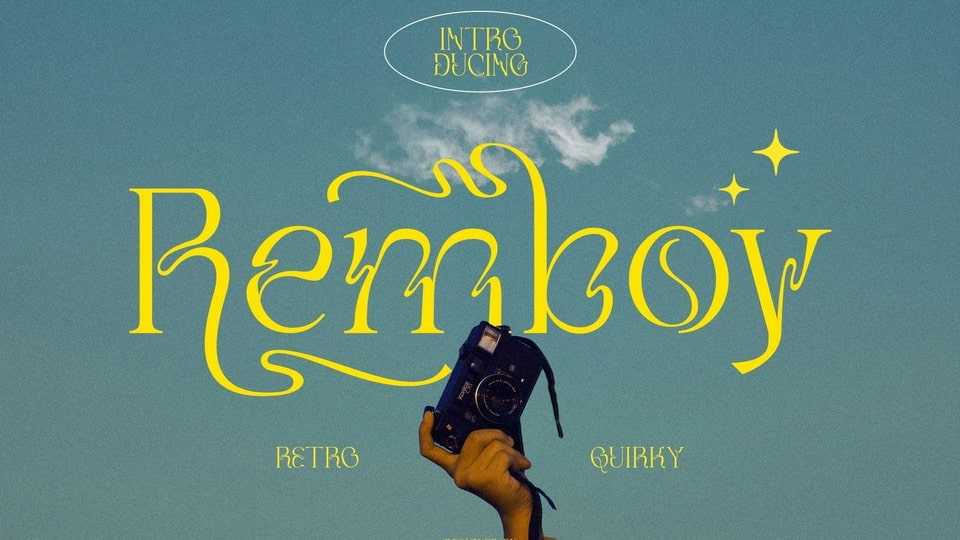
Download Remboy font, a display typeface made with the concept of a modern typography. Remboy font gives a unique impression because it has a curvy shape like waves that is charming and unique.